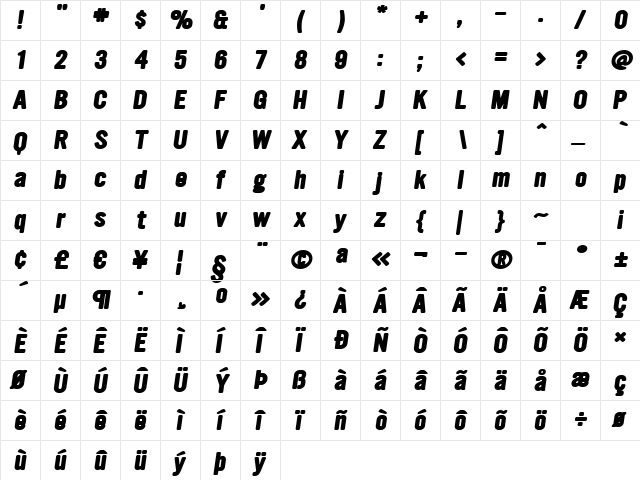
Ultramagnetic ExtraBoldOblique Font Preview
| Foundry | YouWorkForThem |
| Designer | Michael Cina |
Design Context for Ultramagnetic Typeface
Ultramagnetic offers clean, dependable letterforms without strong stylistic allegiance, making it a practical choice for designers who need flexibility. The dynamic lean of this cut emphasises speed and emphasis in any layout. Its bold stroke weight gives it real presence on the page.